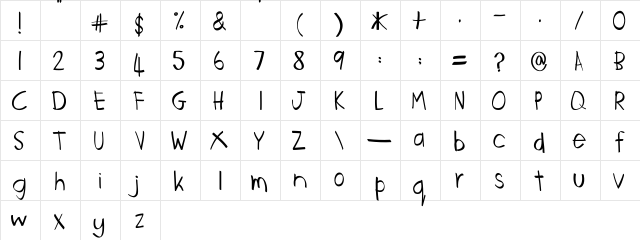
CakorAyam Regular
Design Context for CakorAyam Typeface
CakorAyam is a composed and adaptable typeface that performs quietly and consistently across a wide range of design contexts.